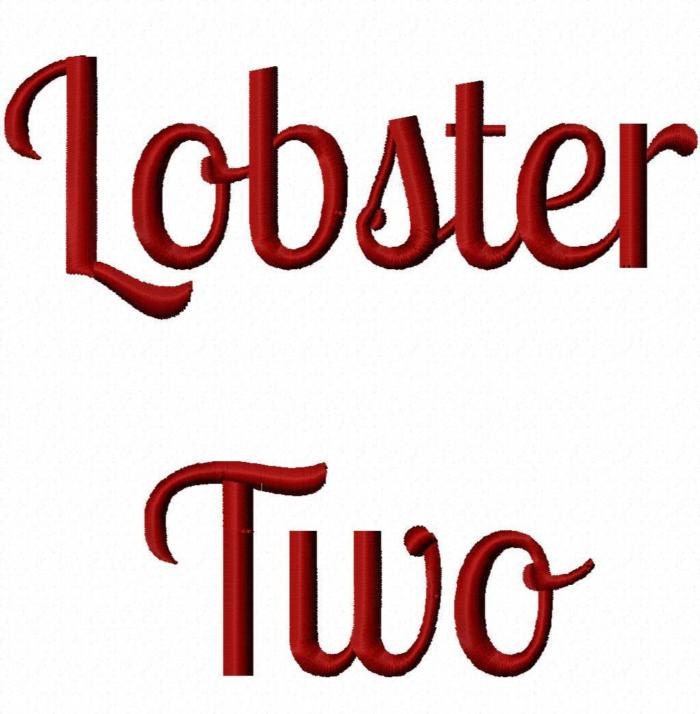
Font Like Lobster . What fonts are similar to lobster regular? Oswald, open sans, or avenir (if you can afford it or have it with adobe) are good all around compliments for most cursive fonts. Lobster the lobster font took a different approach. Montserrat and lobster are a striking font pairing that can be used in various design projects like posters, websites, logos. 100 free fonts alternatives to lobster regular Download lobster font webfont kit for free now. Here are some of our favorite fonts that echo lobster’s distinct style. Thousands of designers (famous or not) use the image font detection system to find a font or similar free fonts from an image. The new opentype format gives us the possibility to have multiple versions of each.
Download lobster font webfont kit for free now. Here are some of our favorite fonts that echo lobster’s distinct style. Montserrat and lobster are a striking font pairing that can be used in various design projects like posters, websites, logos. Oswald, open sans, or avenir (if you can afford it or have it with adobe) are good all around compliments for most cursive fonts. What fonts are similar to lobster regular? The new opentype format gives us the possibility to have multiple versions of each. Thousands of designers (famous or not) use the image font detection system to find a font or similar free fonts from an image. 100 free fonts alternatives to lobster regular Lobster the lobster font took a different approach.
Font Like Lobster Oswald, open sans, or avenir (if you can afford it or have it with adobe) are good all around compliments for most cursive fonts. Lobster the lobster font took a different approach. The new opentype format gives us the possibility to have multiple versions of each. Download lobster font webfont kit for free now. What fonts are similar to lobster regular? Thousands of designers (famous or not) use the image font detection system to find a font or similar free fonts from an image. Oswald, open sans, or avenir (if you can afford it or have it with adobe) are good all around compliments for most cursive fonts. Here are some of our favorite fonts that echo lobster’s distinct style. 100 free fonts alternatives to lobster regular Montserrat and lobster are a striking font pairing that can be used in various design projects like posters, websites, logos.
Lobster Regular PREMIUM Font Font Like Lobster Here are some of our favorite fonts that echo lobster’s distinct style. Oswald, open sans, or avenir (if you can afford it or have it with adobe) are good all around compliments for most cursive fonts. Montserrat and lobster are a striking font pairing that can be used in various design projects like posters, websites, logos. Thousands of designers (famous. Font Like Lobster.
Lobster font by Pablo Impallari FontRiver Font Like Lobster Oswald, open sans, or avenir (if you can afford it or have it with adobe) are good all around compliments for most cursive fonts. Download lobster font webfont kit for free now. 100 free fonts alternatives to lobster regular Montserrat and lobster are a striking font pairing that can be used in various design projects like posters, websites, logos. Lobster. Font Like Lobster.
Lobster Font Free Download Font Font Like Lobster The new opentype format gives us the possibility to have multiple versions of each. Thousands of designers (famous or not) use the image font detection system to find a font or similar free fonts from an image. Download lobster font webfont kit for free now. Lobster the lobster font took a different approach. Montserrat and lobster are a striking font. Font Like Lobster.
Similar Fonts and Free Alternatives to Lobster Graphic Pie Font Like Lobster Here are some of our favorite fonts that echo lobster’s distinct style. What fonts are similar to lobster regular? Lobster the lobster font took a different approach. 100 free fonts alternatives to lobster regular Download lobster font webfont kit for free now. Thousands of designers (famous or not) use the image font detection system to find a font or similar. Font Like Lobster.
Lobster Font FREE Download & Similar Fonts FontGet Font Like Lobster The new opentype format gives us the possibility to have multiple versions of each. Montserrat and lobster are a striking font pairing that can be used in various design projects like posters, websites, logos. Download lobster font webfont kit for free now. Thousands of designers (famous or not) use the image font detection system to find a font or similar. Font Like Lobster.
Lobster Font Generator & Download Font Like Lobster What fonts are similar to lobster regular? Lobster the lobster font took a different approach. Montserrat and lobster are a striking font pairing that can be used in various design projects like posters, websites, logos. The new opentype format gives us the possibility to have multiple versions of each. Thousands of designers (famous or not) use the image font detection. Font Like Lobster.
Lobster Font Text Effect and Logo Design Font Font Like Lobster 100 free fonts alternatives to lobster regular The new opentype format gives us the possibility to have multiple versions of each. Here are some of our favorite fonts that echo lobster’s distinct style. What fonts are similar to lobster regular? Oswald, open sans, or avenir (if you can afford it or have it with adobe) are good all around compliments. Font Like Lobster.
Lobster Two Font Pablo Impallari FontSpace Font Like Lobster The new opentype format gives us the possibility to have multiple versions of each. Oswald, open sans, or avenir (if you can afford it or have it with adobe) are good all around compliments for most cursive fonts. Thousands of designers (famous or not) use the image font detection system to find a font or similar free fonts from an. Font Like Lobster.